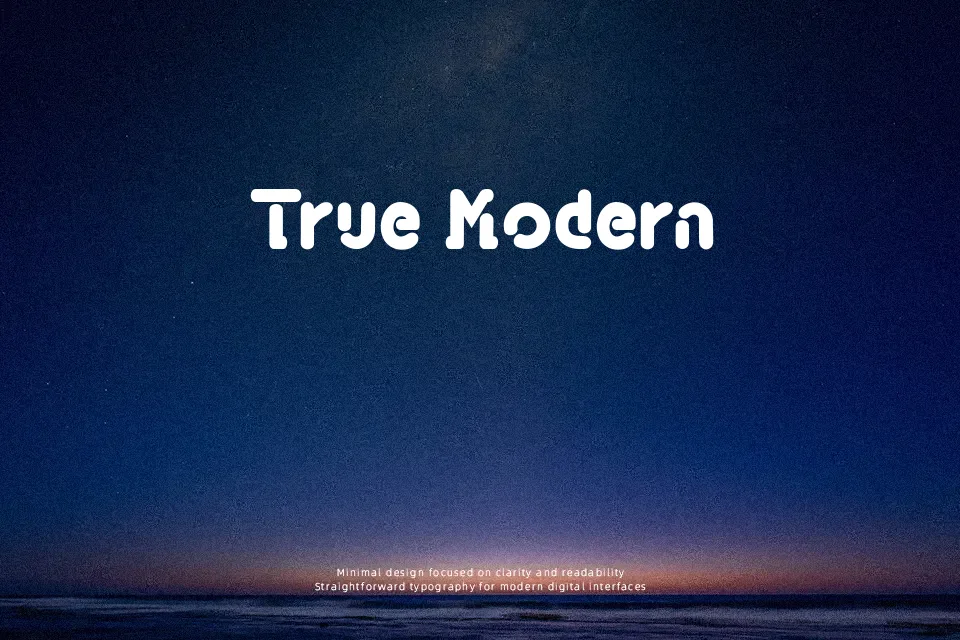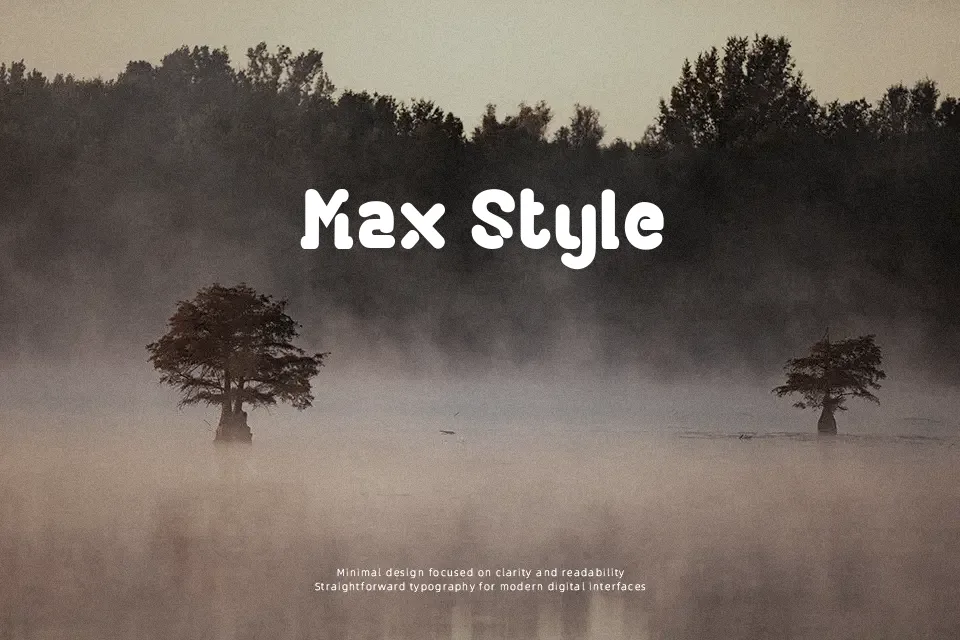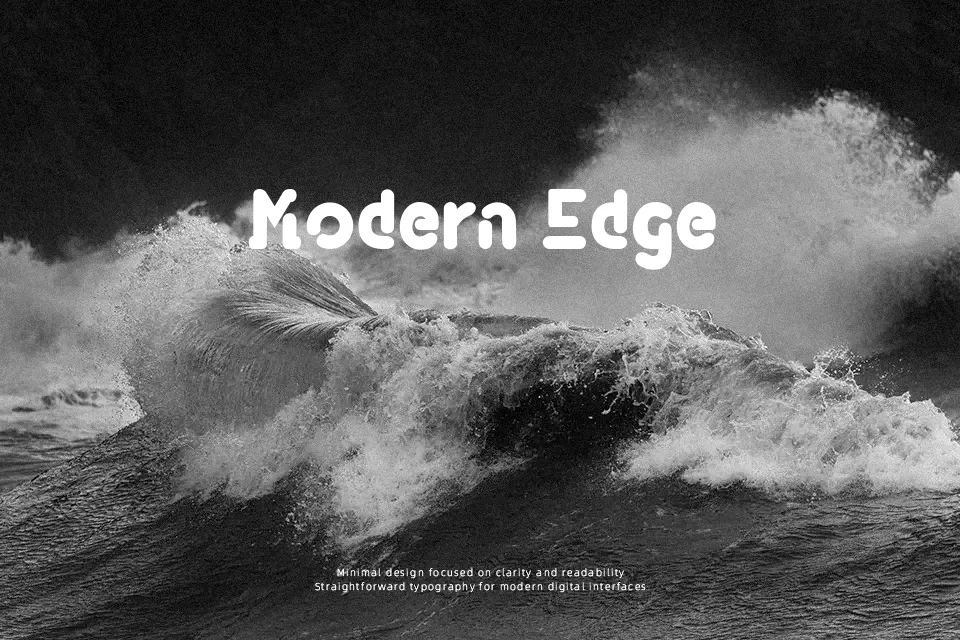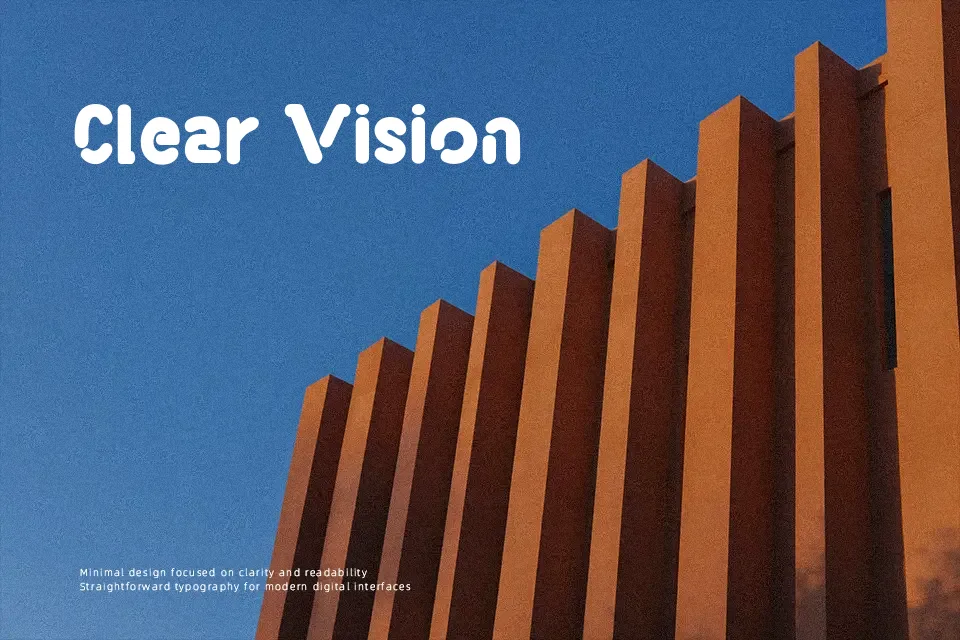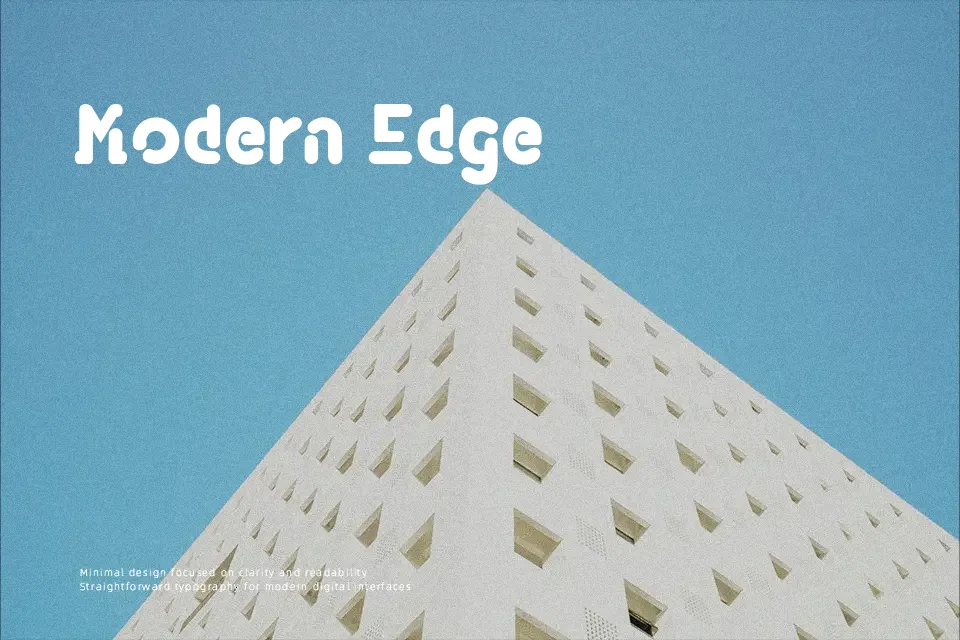
The Calvir Font
Designed by Lhotive Studio
Built with heavy weights and precise geometric cuts, The Calvir Font establishes immediate impact across large-scale display applications. The design combines thick, uniform letterforms with characteristic stencil bridges that break apart solid strokes into defined utilitarian shapes. Spacing remains relatively tight, preserving compact line density while allowing balanced counterforms to support instant word recognition at substantial sizes. As display scales decrease, however, the narrow incisions begin to fill in and reduce structural clarity. The typeface performs best when displayed at larger sizes, making it less suitable for continuous paragraphs or intricate body copy layouts.
– military apparel graphics
– industrial packaging labels
– esports team logos
– music festival posters
– long paragraph text
– corporate reports
– legal documents
– small interface labels